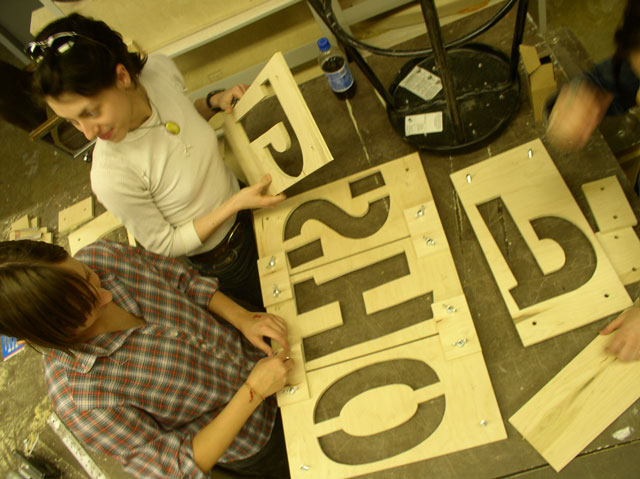
![]() day 1 : day 2 : day 3 : day 4 : day 5 : day 6 : day 7 : final result ![]() CHOPSHOP IS COMPLETE! Thankfully, there weren't any fights today. This day started at 8:30 for some and 2 pm for others. The first task of the day was to get the large-ass letters cut out of wood. One group of typefreaks went to the woodshop to try to bribe the freshman woodshop students to cut the wood for them, but they figured they could do a better job so they went crazy on it. Akiem and Sami continued to say the phrases "its quite okay" and "maybe not like that," or "we can do it better." After these inspirational words, the student found the courage to finish the font. The wood typefreaks, created a very awesome cut out of the word "CHOPSHOP" and went around the city of Detroit to photograph it. Meanwhile, another group of typefreaks bought T-shirts and spray paint, and headed to the grass in front of the school, to spray the stenciled creation on top. Most of the spray painted t-shirts looked unique, and reminded some of the days when people used to wear those "Hypercolor shirts", but they were all very happy with it and planned on a day when they could synchronize their awesome shirts to show off to fellow students. However, with all the work that they did, the typefreaks still have homework for tonight: everyone has to cut out 3 versions of 3 letters out of polystyrene. The typefreaks with bad craft were awarded the letters with no curves. ![]()